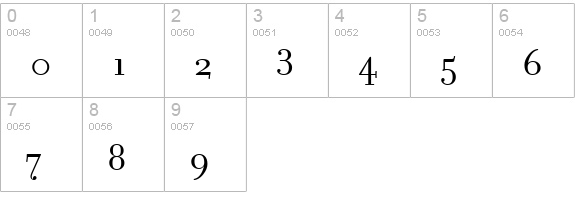
FilosofiaRegular Font Details
FilosofiaRegular is the standard, neutral variant in the FilosofiaRegular typeface family \xE2\x80\x94 well suited to general body text, paragraphs, and standard typographic work.
FilosofiaRegular font is a timeless and elegant typeface that exudes a sense of sophistication and class. Its clean lines and balanced proportions make it perfect for a wide range of design projects, from branding to editorial design. With its classic yet modern aesthetic, FilosofiaRegular font adds a touch of refinement to any text. What makes FilosofiaRegular font even more appealing is that it is completely free to download at FontsMarket.com. This means that you can elevate your designs with this exquisite font without any cost involved. Don't miss out on the opportunity to enhance your projects with the beauty of FilosofiaRegular font, available for free at FontsMarket.com.